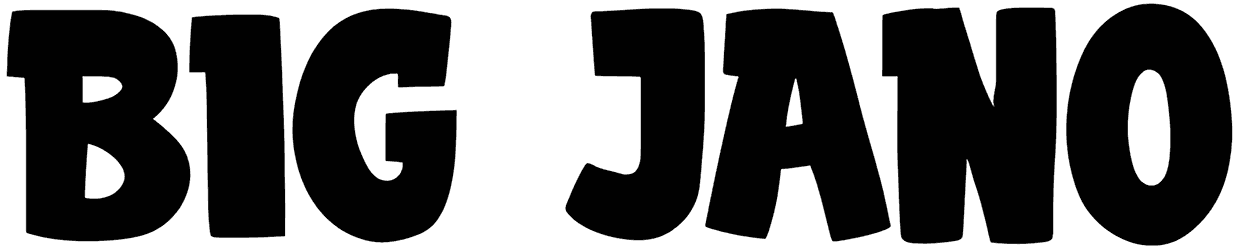
Big Jano Font
If you are working on large-scale advertising posters or banners, Big Jano can beautifully match your ideas. This 90s cartoon font can show off your skill in using not-so-subtle fonts with a powerful look. In addition, it has a friendly and informal feeling that allows you to communicate with your audience in a simpler language and attract their opinion even from a distance.